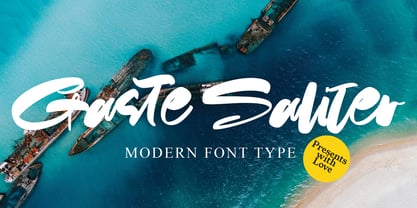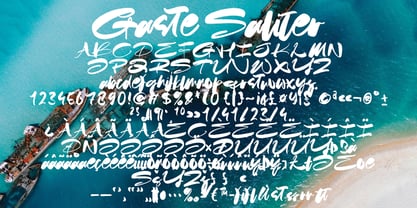
Gaste Saliter
by Pineungtype misinklab
The Gaste Saliter Font Family was designed by Beni Saswita and published by Pineungtype misinklab. Gaste Saliter contains 1 styles. More about this family
Introducing Gaste Saliter - the nexus of modern elegance and delicate allure encapsulated within a handwritten font. This masterpiece radiates refinement and opulence, imbuing your designs with a seamless, tender touch. With its relaxed, sinuous style replete with a dash of funk, Authany Script celebrates the genuine rhythm of natural brush lettering. Its understated texture, evocative of a brush's whispered touch, is the final captivating nuance of Authany Script. This makes it a flawless fit for audacious affirmations and unforgettable branding.
Designers: Beni Saswita
Foundry: Pineungtype misinklab